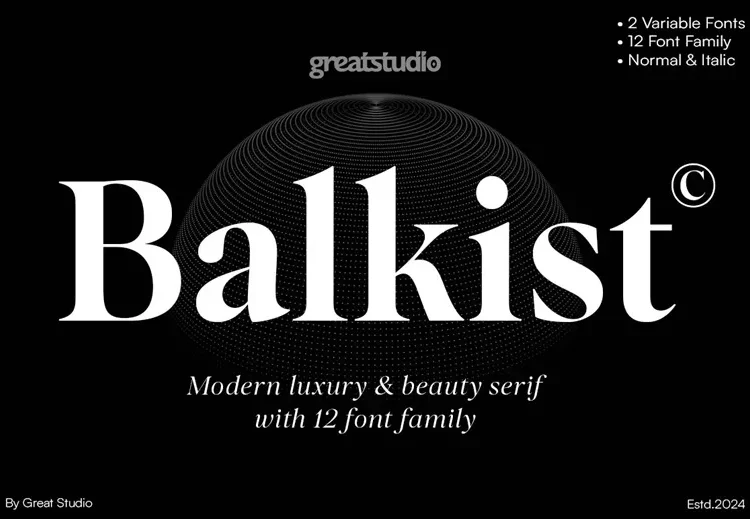
Balkist Font Family
Balkist is a beautifully designed serif font that strikes the perfect balance between transitional and contemporary styles. Its high contrast between thick and thin strokes creates a harmonious and stylish appearance, making it a versatile option for a wide range of design projects. The font comes in various weights, from light to extra bold, ensuring flexibility for both subtle and bold applications. Balkist also features natural curves, especially in its charming Italics, providing a smooth and elegant flow.
The font’s adaptability extends to both large and small text applications, making it ideal for editorial design, text headlines, and branding. Its classic yet modern appeal ensures it works perfectly for logos, identity designs, points of sale, and product packaging. Whether you’re creating a sophisticated editorial layout or designing a striking advertisement, Balkist’s bold weights provide a powerful impact, while the lighter weights offer a more delicate, refined touch.
One of the key strengths of Balkist is its versatility in use. The contrasting weights and thoughtful optical corrections ensure that it maintains its elegance and clarity across various mediums. From magazine headlines to logos, packaging to advertising, Balkist elevates any project with its chic yet approachable style. Its refined appearance makes it equally suitable for both modern and traditional design purposes.